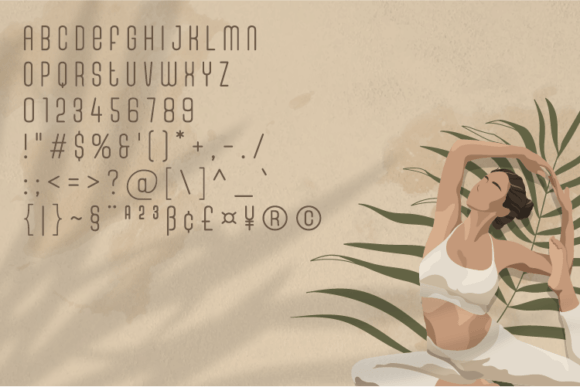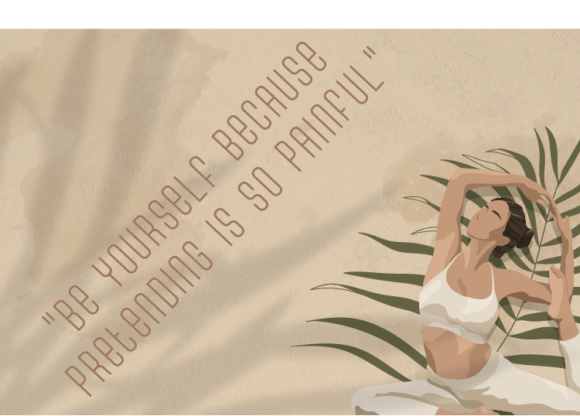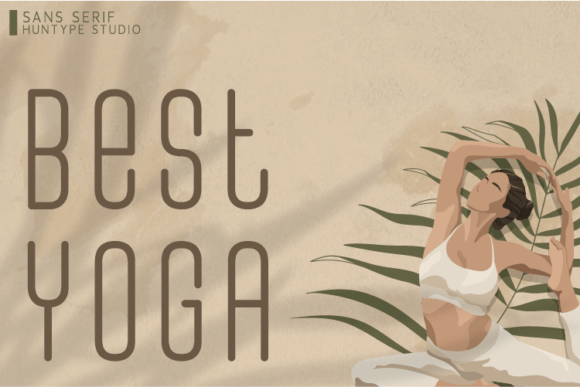
Discover the Best Yoga Font for Your Design Needs
Are you a designer, crafty enthusiast, or yoga instructor looking for the perfect font to elevate your brand or project? Look no further! In this article, we’ll explore the Best Yoga Font, a versatile and visually stunning sans serif font that’s perfect for a variety of applications.
What is Best Yoga Font?
The Best Yoga Font is an all-caps sans serif font that boasts smooth and clean lines, with just a touch of contrast. This unique combination makes it an excellent choice for logos, branding, and web headings. Its versatility allows it to seamlessly adapt to various contexts, making it a valuable addition to any designer’s toolkit.
Key Features of Best Yoga Font
- All-caps design: The Best Yoga Font features an all-caps design, which gives it a strong and confident look.
- Smooth and clean lines: The font’s smooth and clean lines ensure that it remains legible and visually appealing, even at smaller sizes.
- Touch of contrast: The subtle contrast in the font adds depth and character, making it more engaging and dynamic.
- Versatility: The Best Yoga Font works beautifully in various contexts, from logos and branding to web headings and more.
Use Cases for Best Yoga Font
The Best Yoga Font is an excellent choice for a wide range of design projects, including:
- Logos and branding: The font’s unique blend of simplicity and contrast makes it perfect for creating memorable and impactful logos.
- Web headings: The Best Yoga Font is optimized for web use, with clear and legible lettering that ensures your headings stand out.
- Yoga and wellness branding: As a font specifically designed with yoga in mind, it’s an excellent choice for yoga studios, wellness centers, and related businesses.
- Crafting and DIY projects: The font’s creative and artistic vibe makes it suitable for crafting and DIY projects, such as handmade product labels or blog headers.
Why Choose Best Yoga Font?
With so many fonts available, why choose the Best Yoga Font? Here are just a few compelling reasons:
- Unique style: The Best Yoga Font offers a distinctive and stylish look that sets it apart from more generic fonts.
- High versatility: The font’s adaptability makes it suitable for a wide range of design projects and applications.
- Ease of use: The Best Yoga Font is easy to read and works well in various sizes, making it a practical choice for designers.
Tips for Using Best Yoga Font
To get the most out of the Best Yoga Font, consider the following tips:
- Pair with complementary fonts: Combine the Best Yoga Font with other fonts that complement its style, such as elegant scripts or bold sans serifs.
- Experiment with colors: Take advantage of the font’s versatility by trying out different colors and textures to match your brand or project’s aesthetic.
- Adjust font sizes: Play with font sizes to create visual hierarchy and add emphasis to specific elements in your design.
In conclusion, the Best Yoga Font is an exceptional choice for designers, crafty enthusiasts, and yoga instructors seeking a versatile and visually stunning font. Its unique blend of simplicity, contrast, and style makes it perfect for a wide range of design projects, from logos and branding to web headings and crafting projects. With its ease of use and high versatility, the Best Yoga Font is sure to become a valuable addition to your design toolkit.